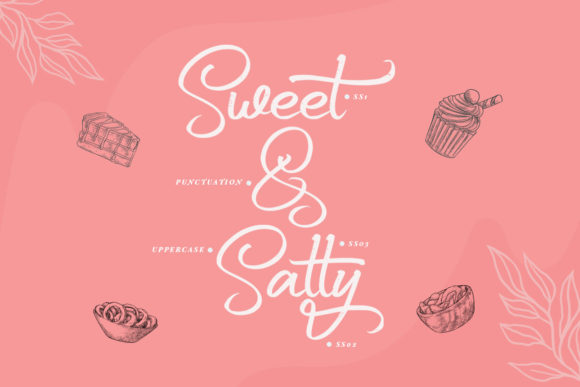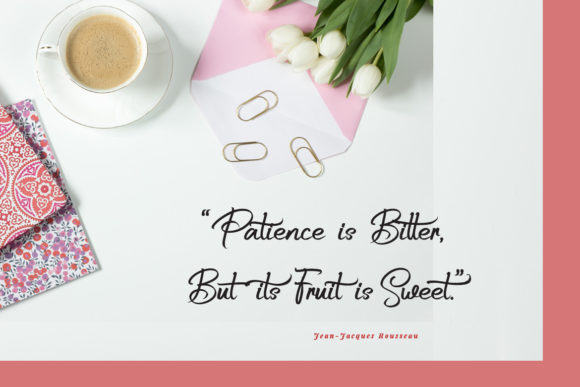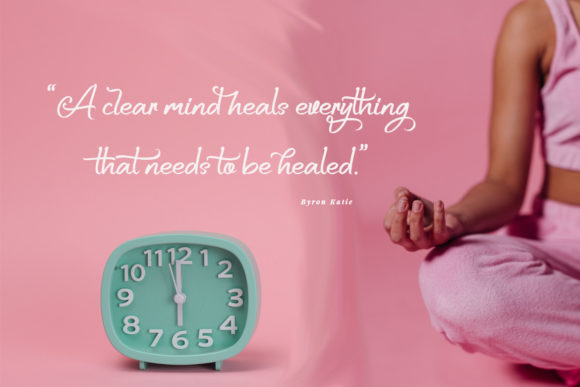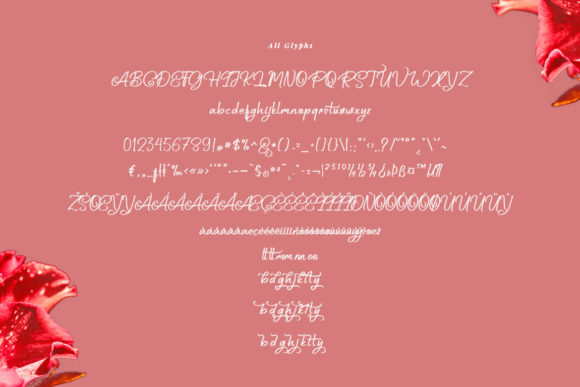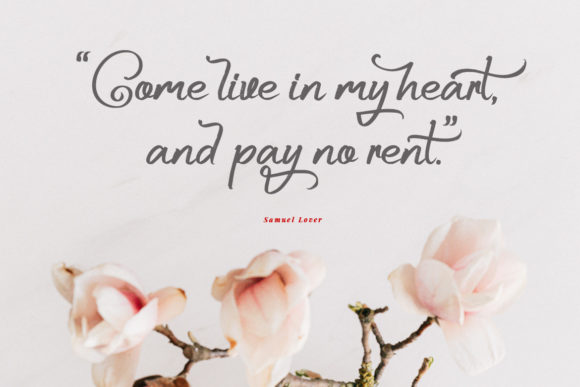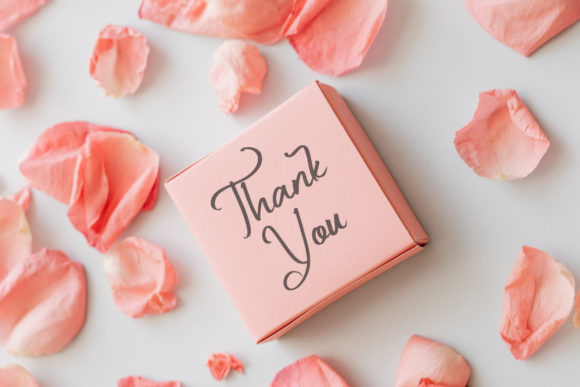
Introducing Butter Milky Font: The Creamy Script Font for Creative Projects
Are you a designer or crafter looking for a beautiful and versatile font to elevate your branding projects? Look no further than Butter Milky Font, a gorgeous script font that’s perfect for creating stunning logos, t-shirt designs, and creative products.
What is Butter Milky Font?
Butter Milky Font is a modern script font that exudes elegance and sophistication. Its creamy texture and smooth lines make it perfect for a wide range of design applications, from logos and branding materials to t-shirt printing and creative products.
Key Features of Butter Milky Font
• Beautiful Script Design: Butter Milky Font features a gorgeous script design with flowing lines and smooth curves, making it perfect for creating elegant and sophisticated designs.
• Versatile: This font is versatile and can be used for a wide range of design applications, including logos, t-shirt printing, and creative products.
• Easy to Read: Despite its script design, Butter Milky Font is easy to read, making it perfect for body text and headlines.
• High-Quality: This font is designed with high-quality and precision, ensuring that it looks great in any design application.
Uses of Butter Milky Font
Butter Milky Font is perfect for a wide range of design applications, including:
• Logo Design: Create stunning logos for your brand with Butter Milky Font. Its elegant design makes it perfect for creating professional and memorable logos.
• T-Shirt Printing: Design eye-catching t-shirts with Butter Milky Font. Its smooth lines and creamy texture make it perfect for creating stunning designs that will stand out.
• Creative Products: Use Butter Milky Font to create stunning designs for creative products such as mugs, phone cases, and more.
• Branding Materials: Elevate your branding materials with Butter Milky Font. Use it to create stunning business cards, brochures, and more.
Why Choose Butter Milky Font?
There are many reasons why you should choose Butter Milky Font for your design projects. Here are a few:
• Unique Design: Butter Milky Font features a unique design that will set your designs apart from the rest.
• Elegant and Sophisticated: This font exudes elegance and sophistication, making it perfect for creating professional designs.
• High-Quality: This font is designed with high-quality and precision, ensuring that it looks great in any design application.
Tips for Using Butter Milky Font
Here are a few tips for using Butter Milky Font in your design projects:
• Use it with a contrasting background: Butter Milky Font looks great with a contrasting background. Use it with a dark background to create a stunning design.
• Experiment with different sizes: This font looks great in different sizes. Experiment with different sizes to find the one that works best for your design.
• Pair it with other fonts: Butter Milky Font can be paired with other fonts to create a stunning design. Experiment with different font combinations to find the one that works best for your design.
Font Name Butter Milky Font
Author feydesign
Butter Milky Font is a gorgeous script font that’s perfect for any branding project. Its elegant design, versatility, and high-quality make it a great choice for designers and crafters. With its creamy texture and smooth lines, this font is sure to elevate your designs and make them stand out. So why wait? Download Butter Milky Font today and start creating stunning designs!